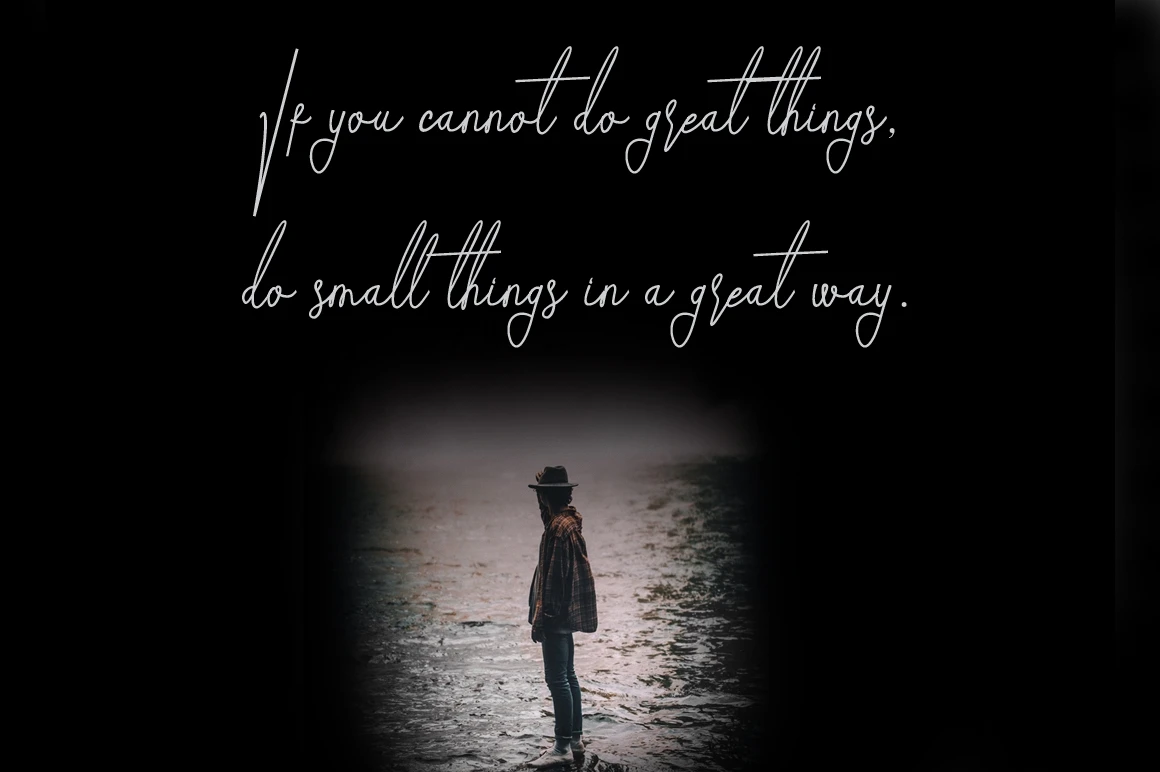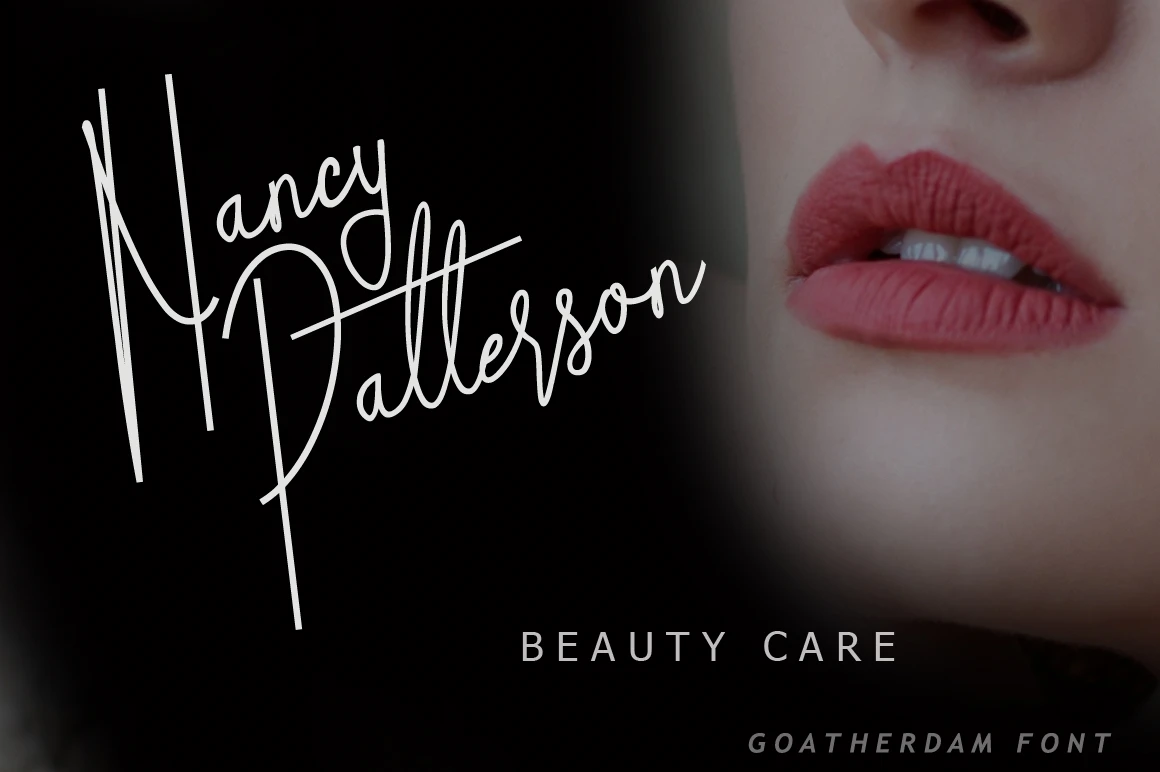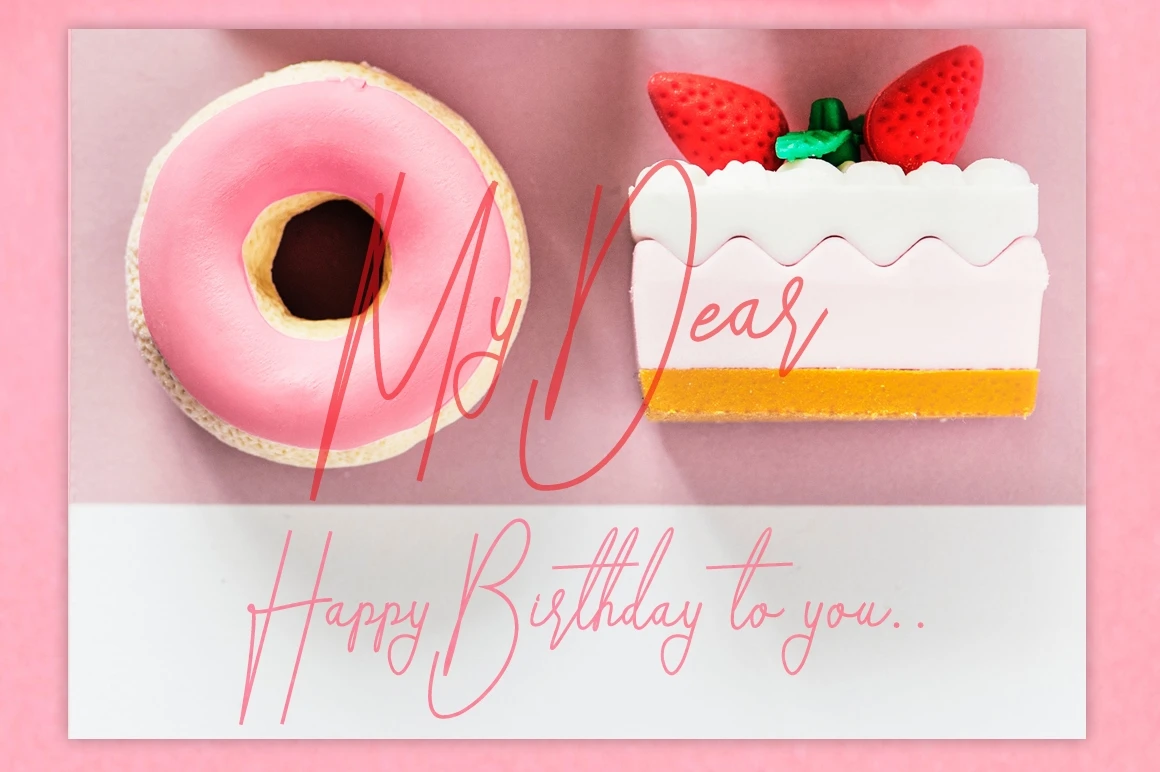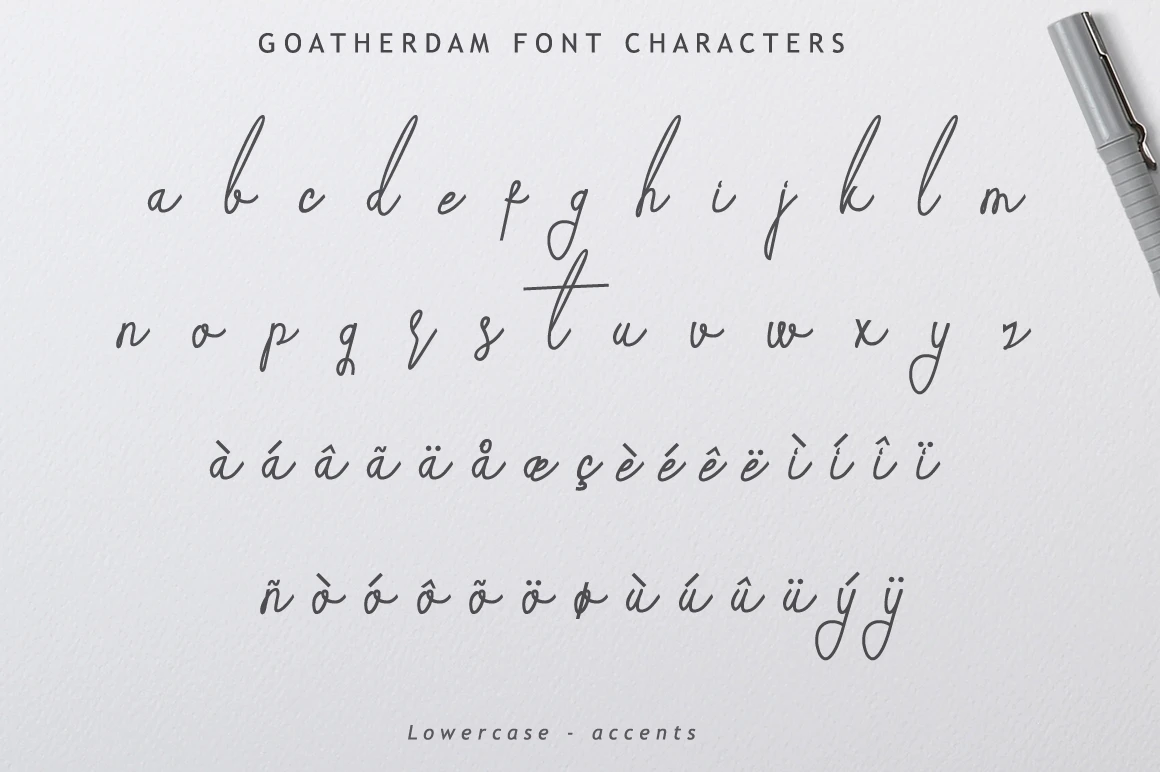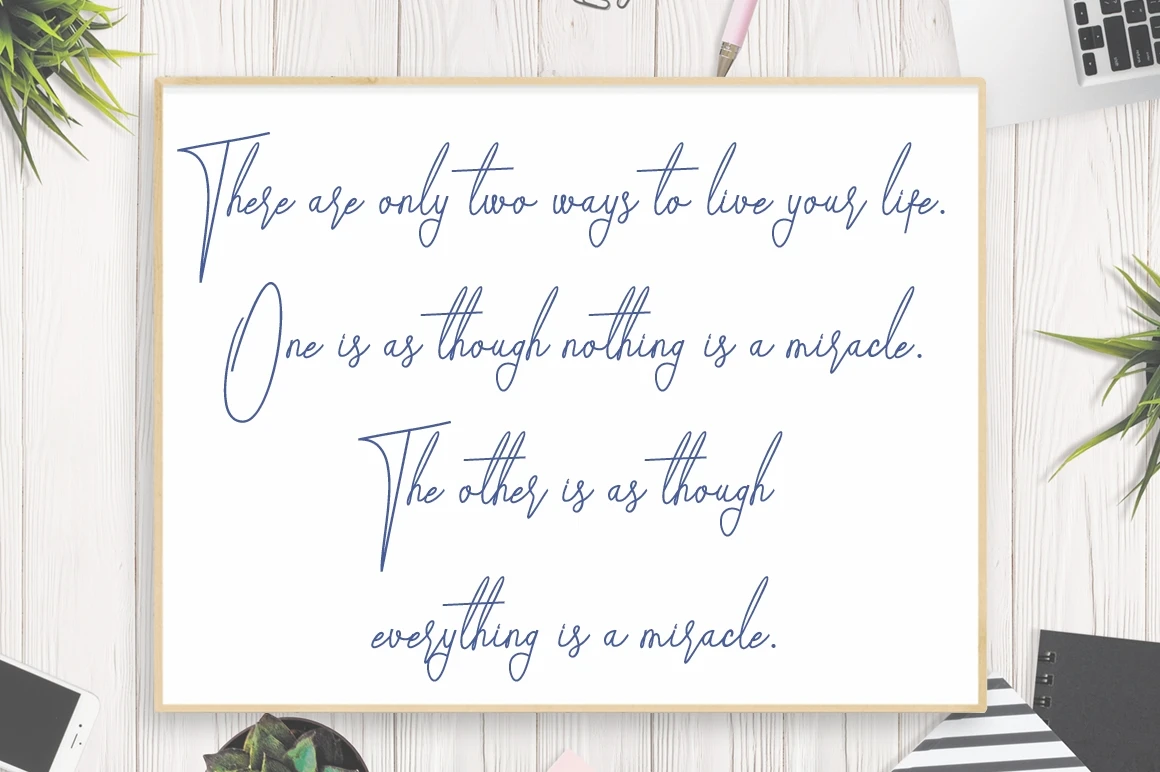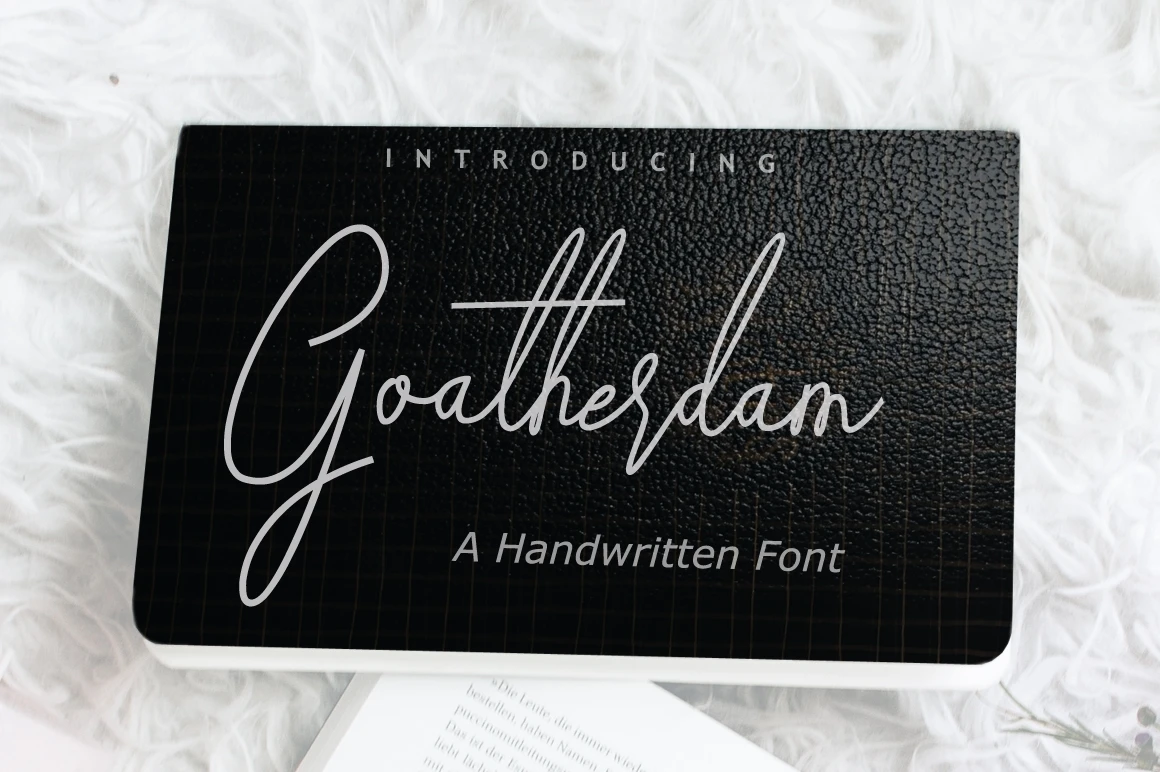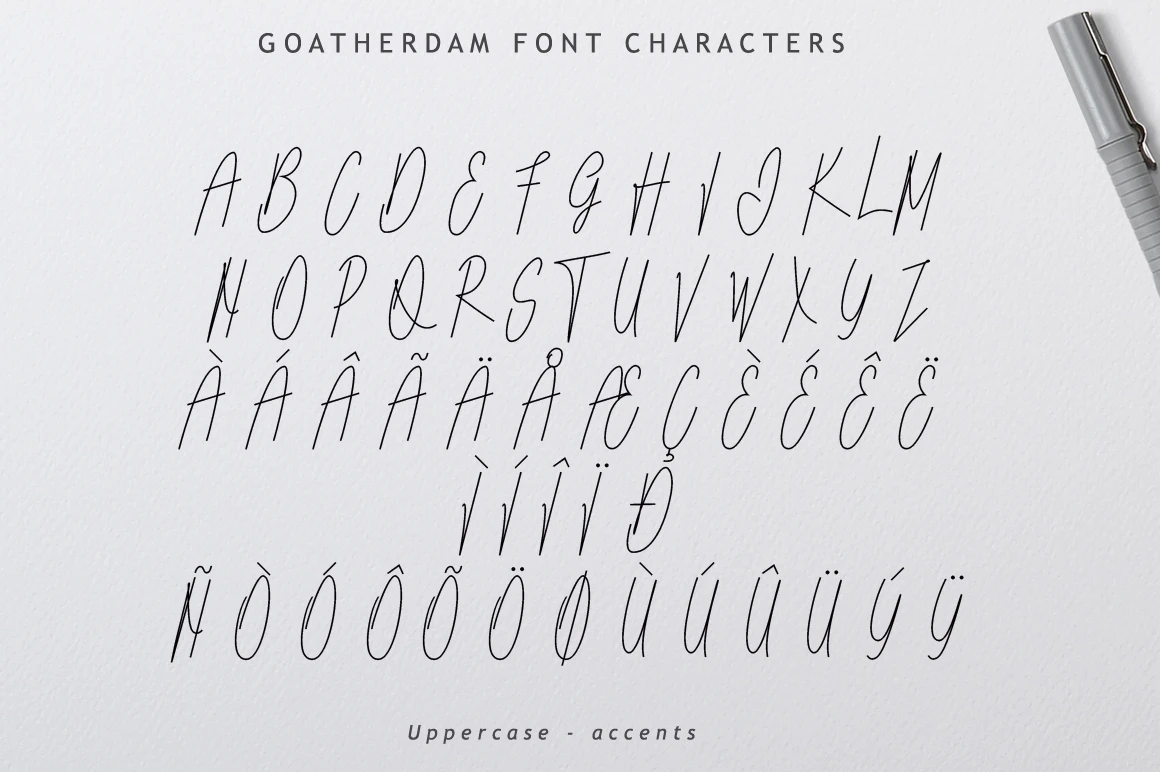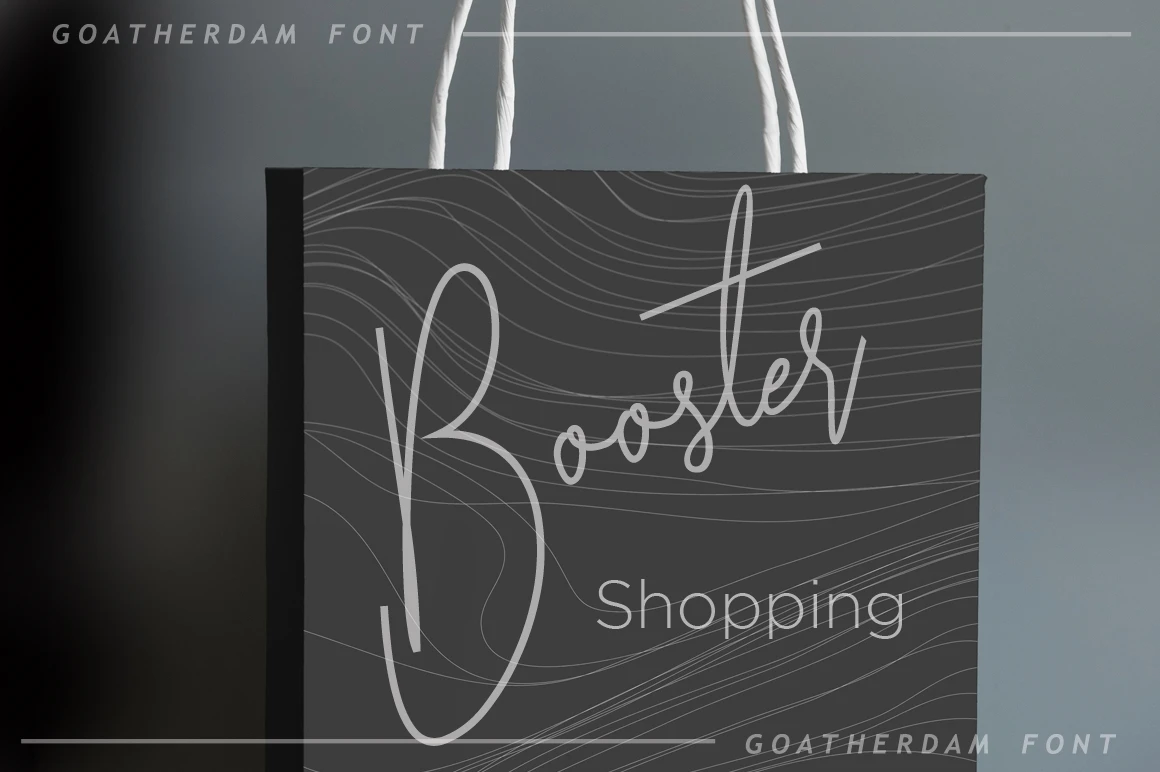
Goatherdam is a handwritten script font with realistic and natural touch. Goatherdam is an excellent choice for signatures, quotes, logotypes, branding, product packaging, wedding invites and many more.
Features :
- Uppercase A-Z
- Lowercase a-z
- Numbers 0-9
- Accents
- Punctuation
- Custom Ligatures
- Multilingual support